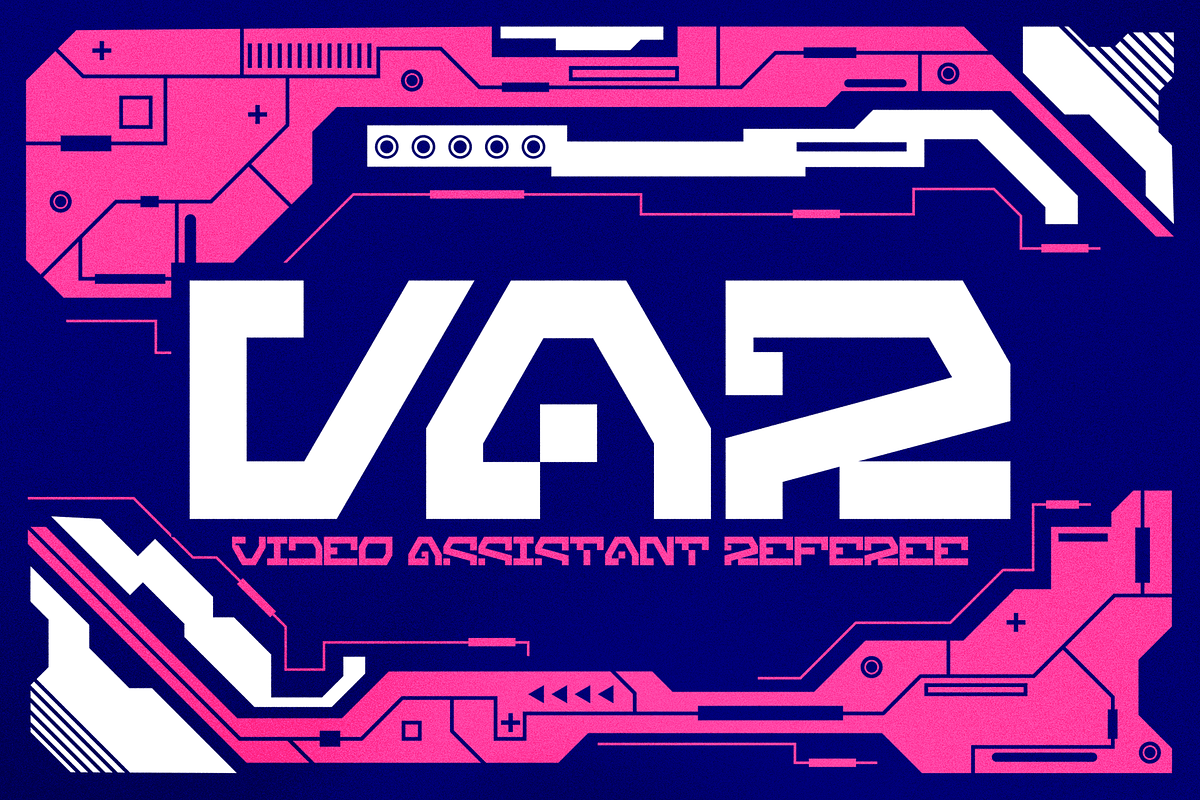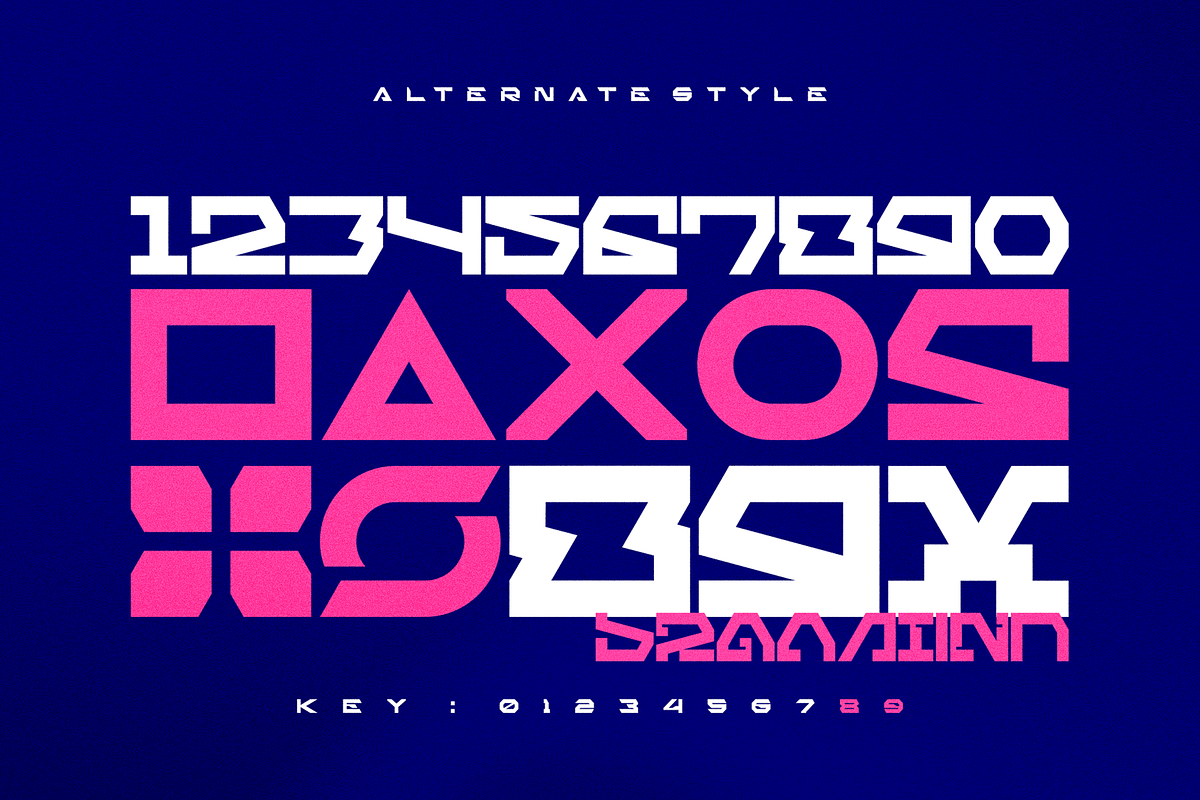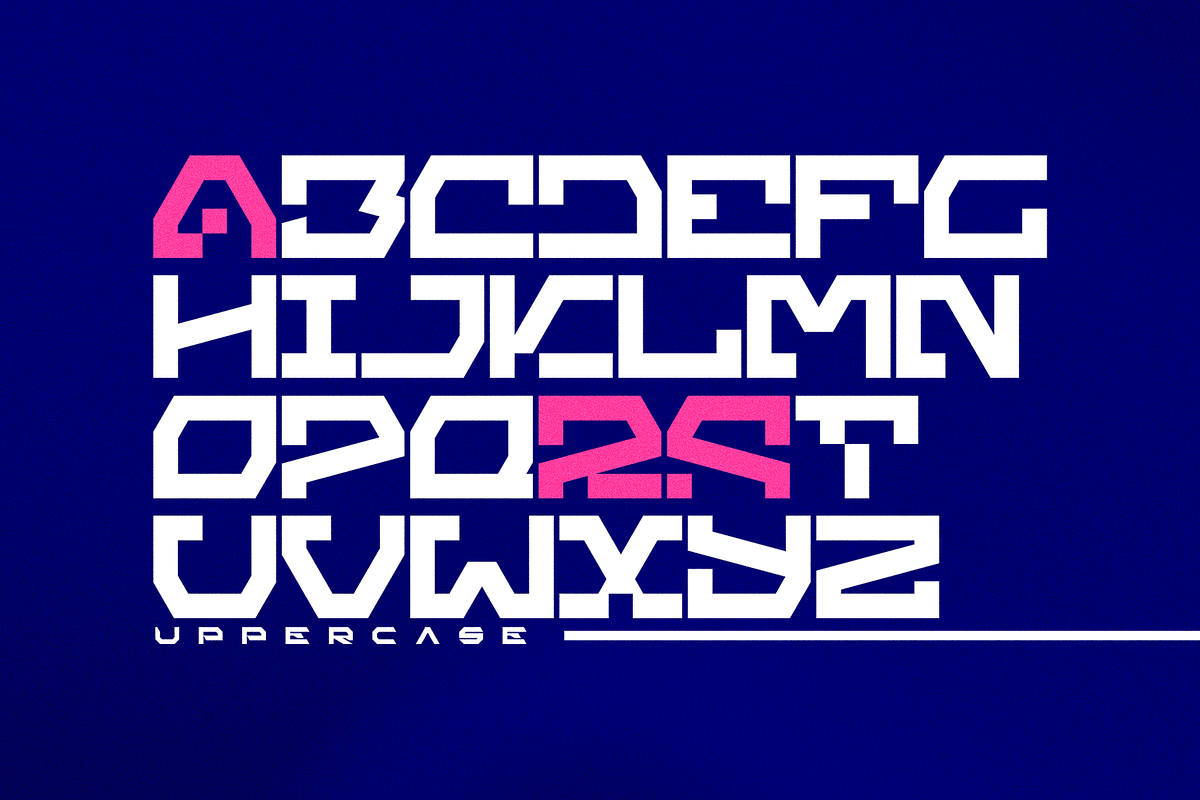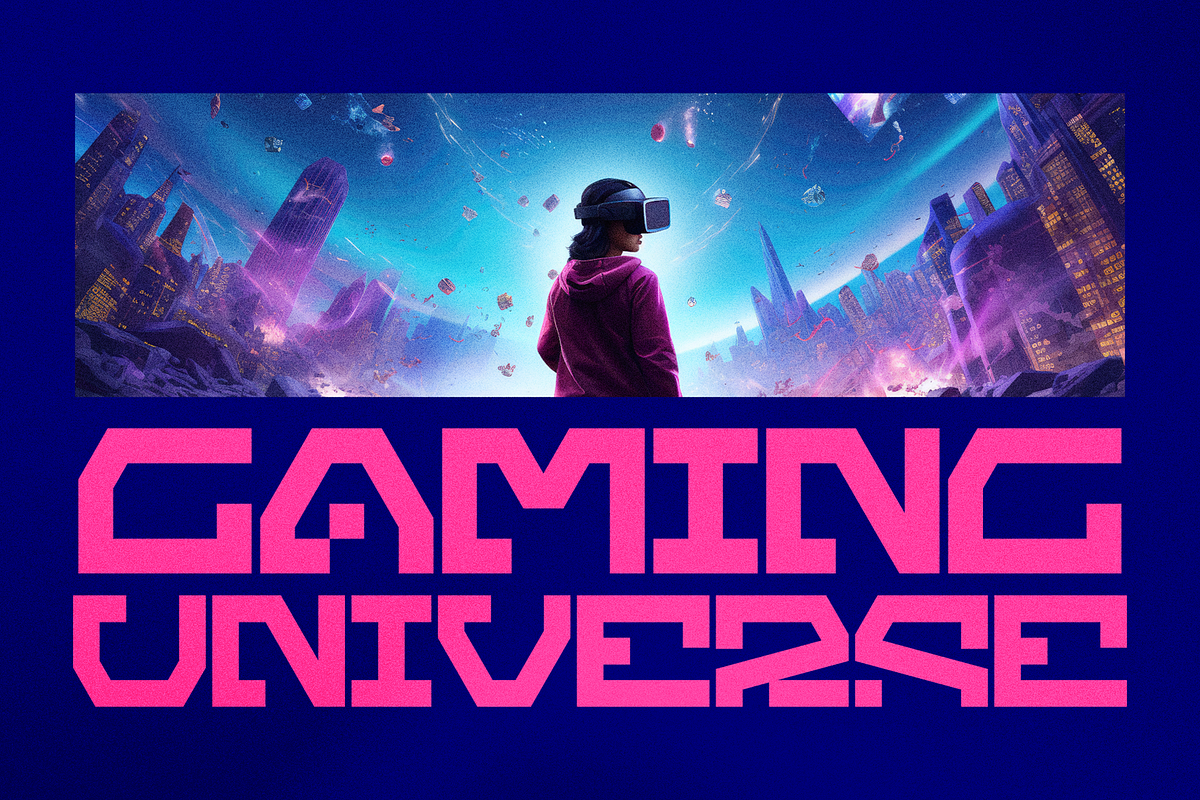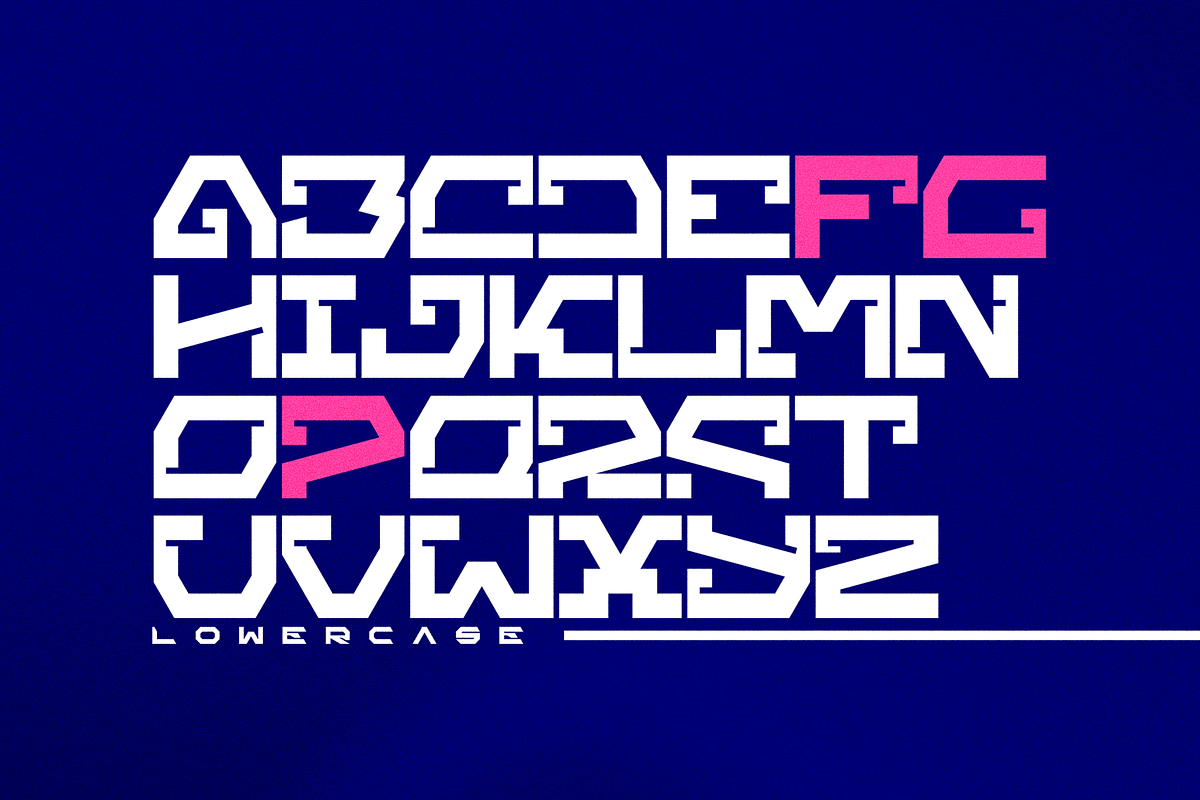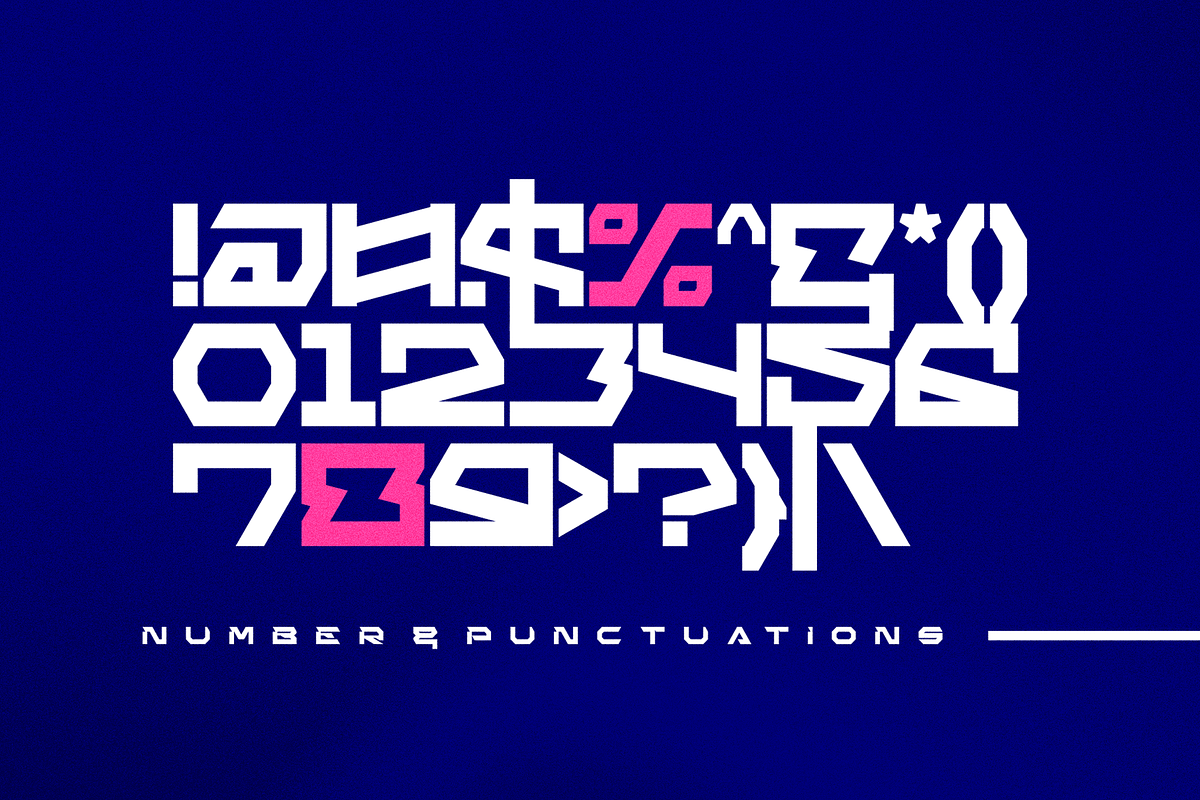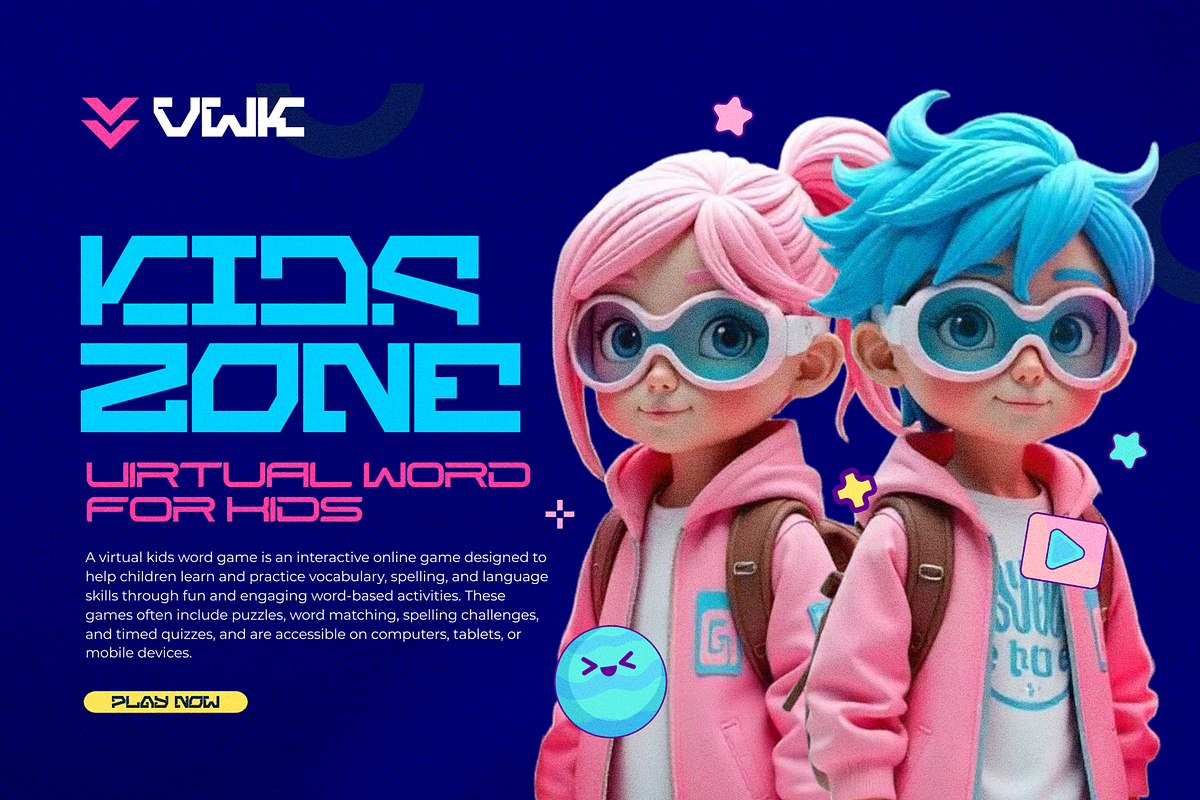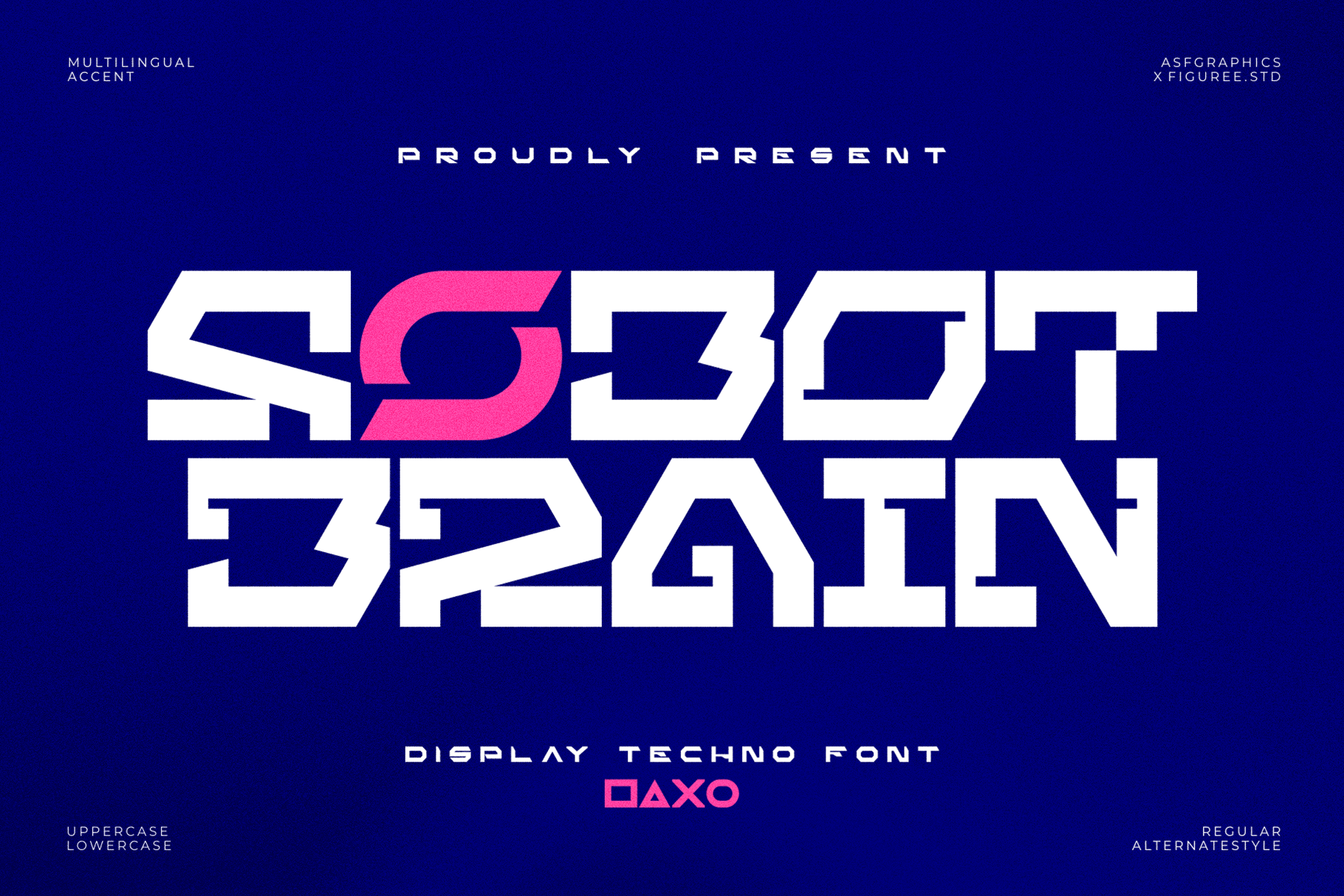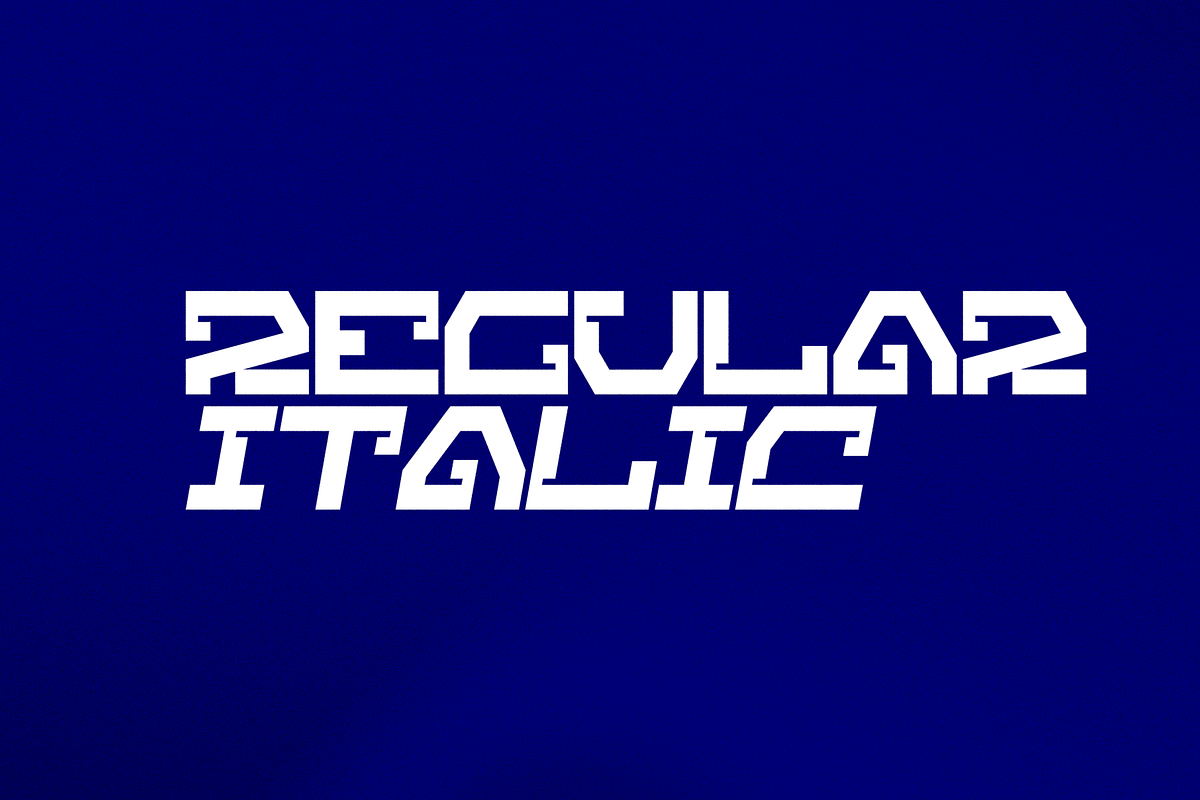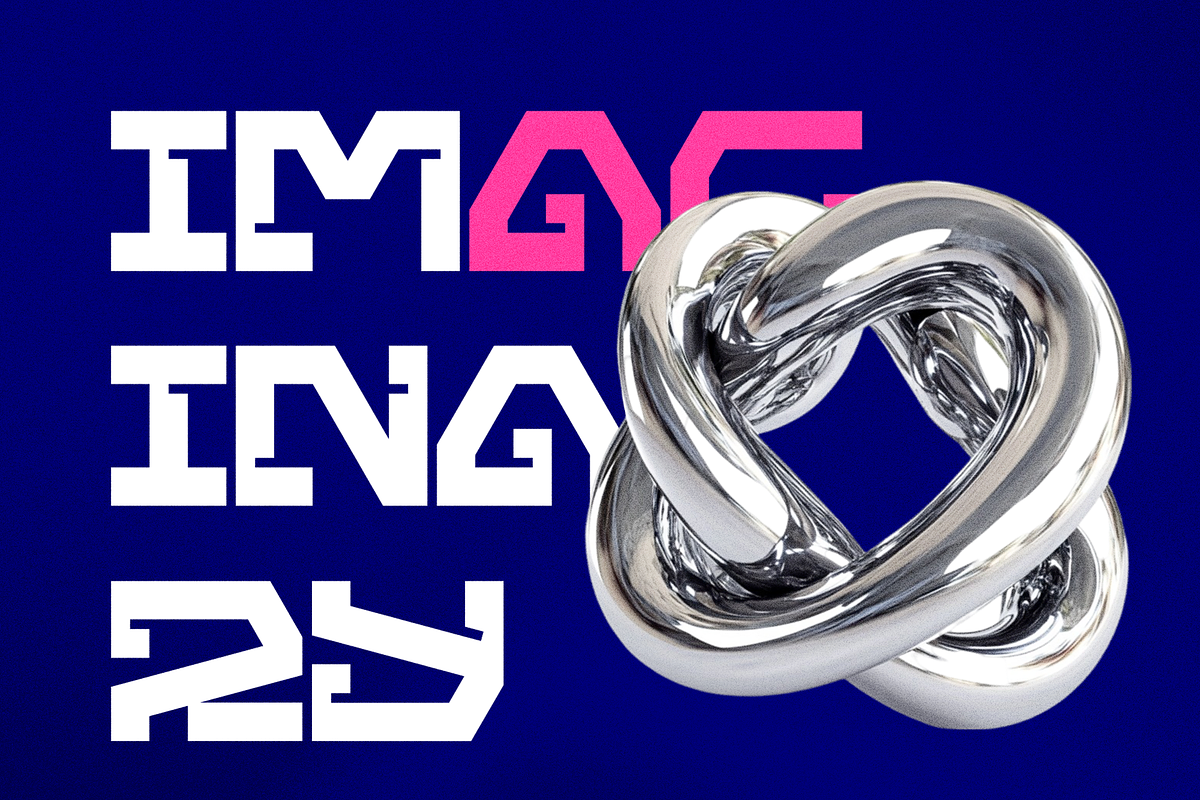
Robot Brain – Display Techno Font
Unleash the power of innovation with Robot Brain, a display techno font engineered for the digital frontier. With a sleek fusion of futuristic aesthetics and mechanical energy, this font is ideal for projects that demand a bold, cutting-edge presence—whether it's UI design, game titles, tech posters, or sci-fi branding.
- Uppercase & Lowercase – Flexible letterforms give you more control in your layouts.
- Alternate Characters in Numbers – Add variation and futuristic flair with unique numeral styles.
- Bold Techno Display Style – Geometric and angular, perfect for high-impact visuals.
- Multilingual Support – Includes major Latin-based language support.
- Full Punctuation & Symbols – Ready for all your creative needs.
- Designed for the Future – Ideal for AI, robotics, gaming, and sci-fi themes.
- Modern Yet Playful – Balanced to suit serious tech or creative digital expressions.
- Creative Versatility – Customize your headlines or designs with stylistic alternates.
- Professional Quality – Clean, scalable vectors that shine in both print and screen formats.
Robot Brain is more than a font—it’s a futuristic design asset for visionaries and tech creatives ready to level up their work.